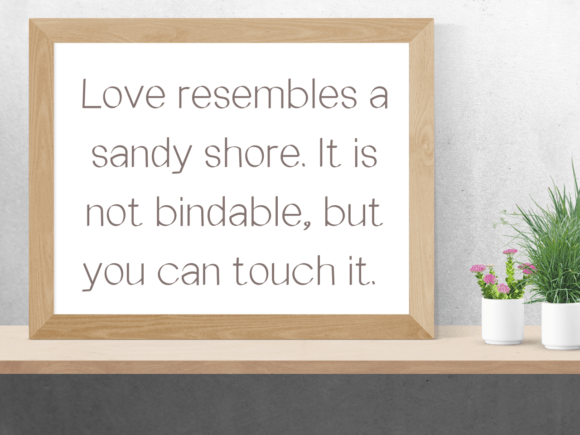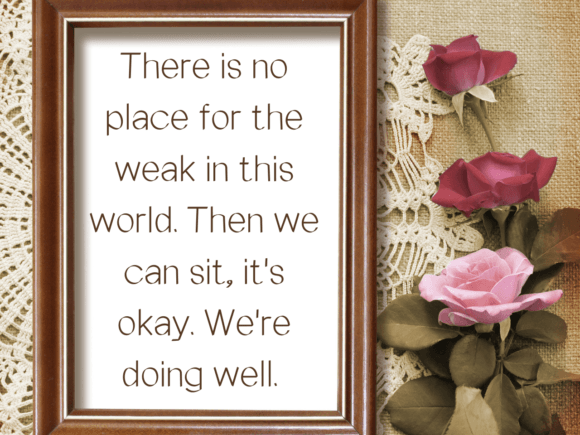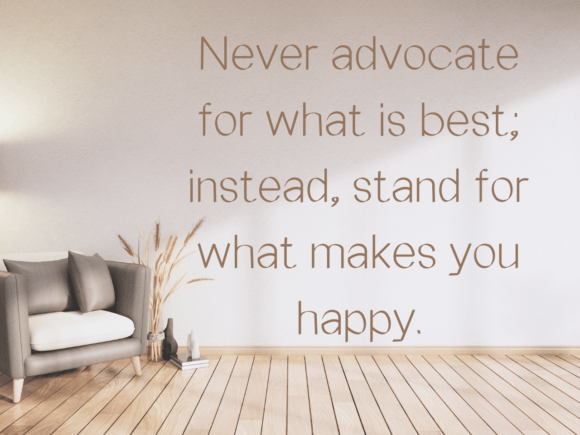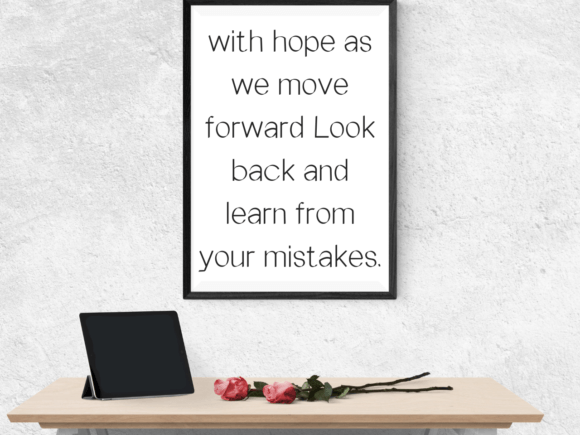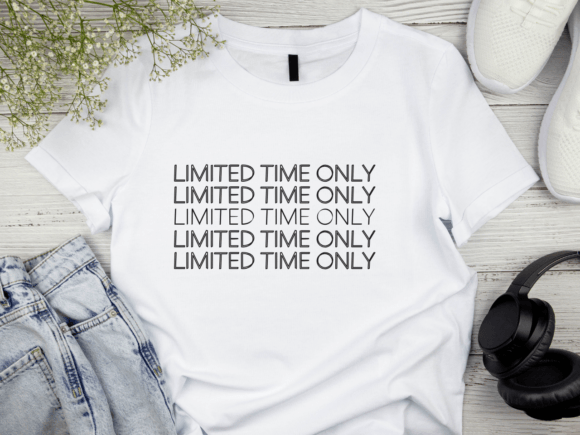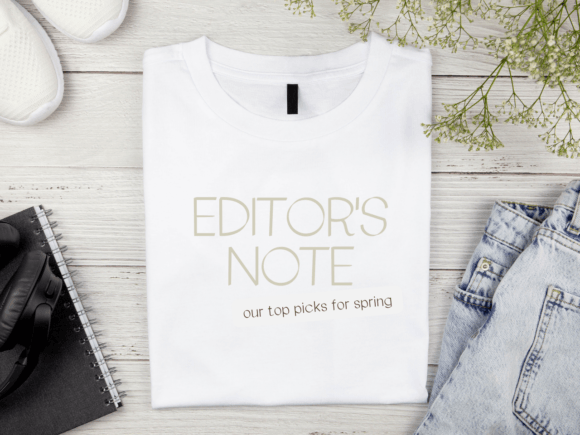
Introduction to Marina Font
Have you ever been working on a creative project, pouring your heart and soul into every detail, and then stumbled upon the perfect font that elevates your entire design? That’s exactly what happened to many designers when they discovered the Marina Font. This unique font boasts angular play, giving it a distinct identity that sets it apart from the rest.
Whether you’re designing greeting cards, wedding cards, or any other type of lettering, the Marina Font is a game-changer. Its high-quality design and transparent background make it an ideal design resource for any creative project. The best part? You can download it for free, making it an accessible and valuable addition to your design toolkit.
For designers, the Marina Font is a treasure trove of creative possibilities. With its versatility and unique aesthetic, it’s the perfect tool to add a touch of distinctiveness to your work and make it truly stand out.
- High-quality font with a unique, elegant design suitable for various creative projects, including graphic design, digital art, and publishing.
- Designed to be highly legible and versatile, making it an ideal choice for a wide range of creative projects, from business cards to signage and beyond.
Honest Review: Marina Font
As a designer, I’m always on the lookout for high-quality fonts that can elevate my creative projects. Recently, I had the chance to try out the Marina Font, and I’m excited to share my thoughts.
- ✨ The Marina Font has a beautiful, elegant design that’s perfect for projects that require a touch of sophistication.
- ✨ The font’s transparent background makes it easy to use in various design scenarios, from web design to print projects.
- ⚠️ The font’s character set is limited, which may not be ideal for projects that require a wide range of characters.
- ⚠️ The font’s legibility could be improved in certain font sizes and resolutions.
Overall, I think the Marina Font is a solid choice for designers looking for a high-quality, free font for their creative projects. While it has some limitations, its elegant design and transparent background make it a valuable resource for designers.
Marina Font is ideal for designing graphics, logos, and typography for various creative projects, including presentations, documents, and websites. Its transparent background makes it perfect for combining with images or other design elements to create a unique and eye-catching visual identity.